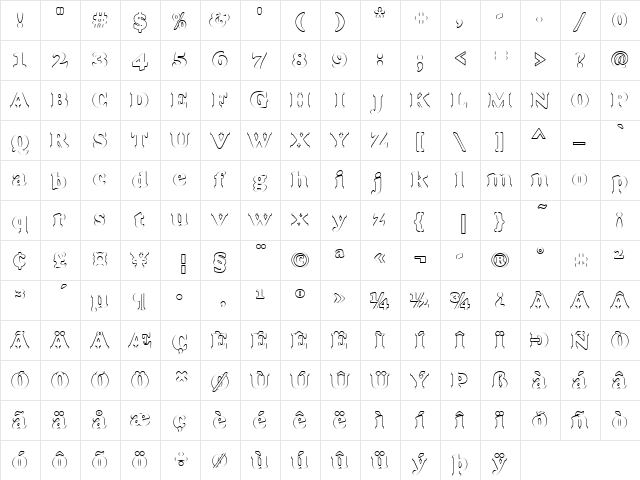
Goudy Becker Heavyface Outline Regular
Design Context for Goudy Becker Heavyface Outline Typeface
Goudy Becker Heavyface Outline is built around its visual character rather than neutral utility — its distinctive forms are designed to make an impression at display sizes.
Font Pairing: Pair with a clean neutral sans-serif for body copy to let Goudy Becker Heavyface Outline's character lead without overwhelming the composition.
Pro Tip: Treat Goudy Becker Heavyface Outline as the centrepiece of your typographic hierarchy. One strong heading set in a decorative face can carry an entire layout.